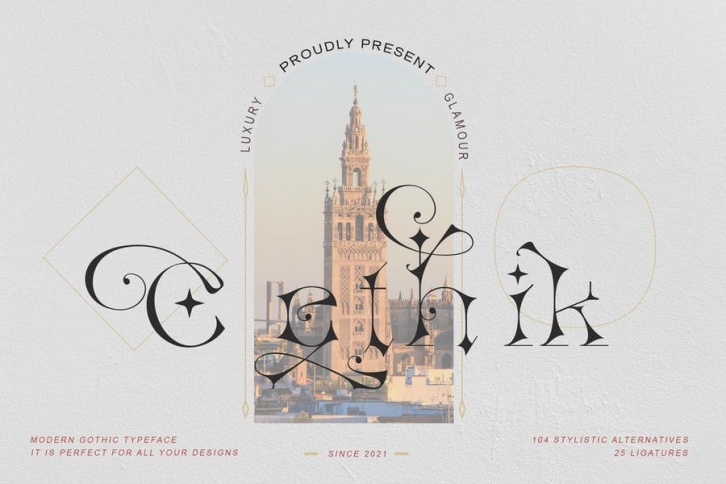
Cethik Typeface
Cetik font is inspired by gothic fonts in the early 1900s. The "Cetik" font has many bold and unique ornaments, making your design concept different and of course attracting attention for audiences.
This font is perfect for text headers, boutique logos, tattoo signs, book covers and so on that use a bold and gothic design concept.